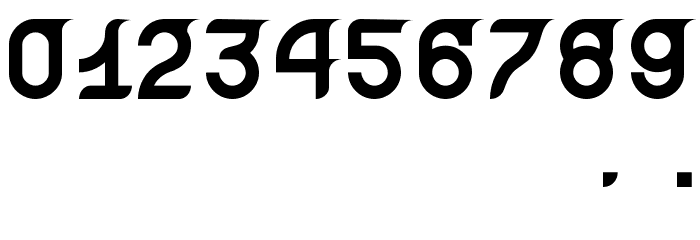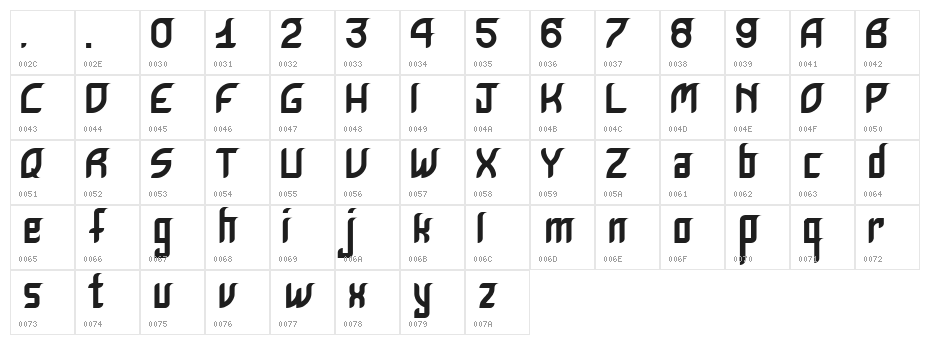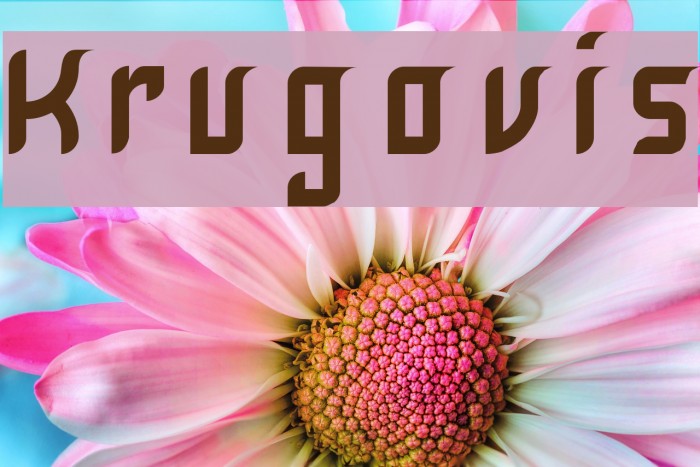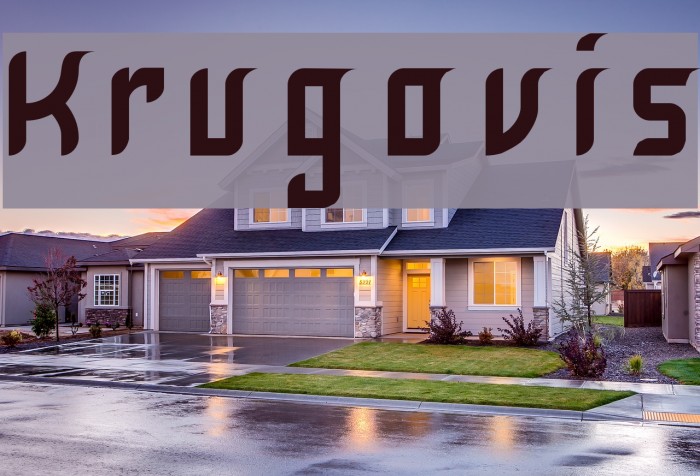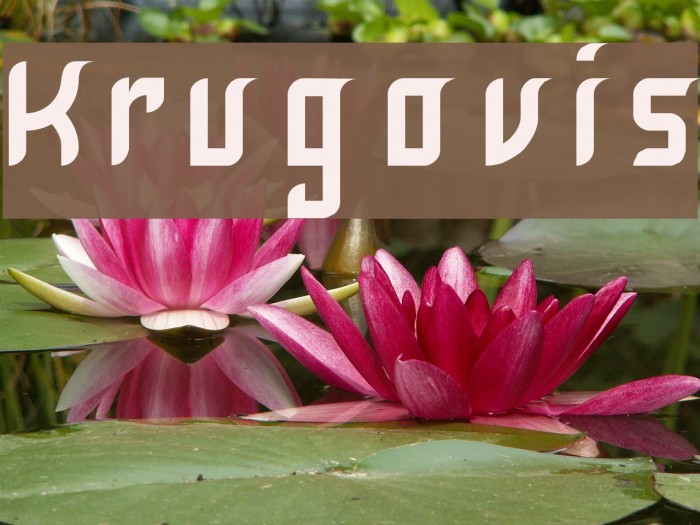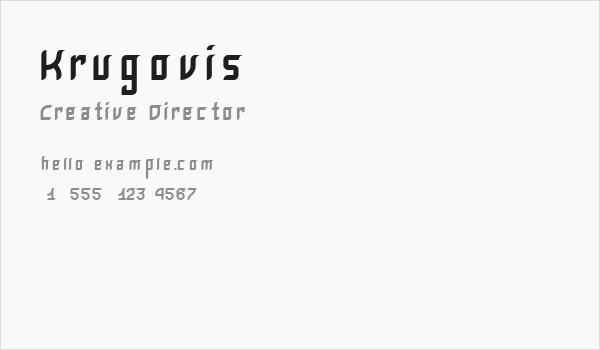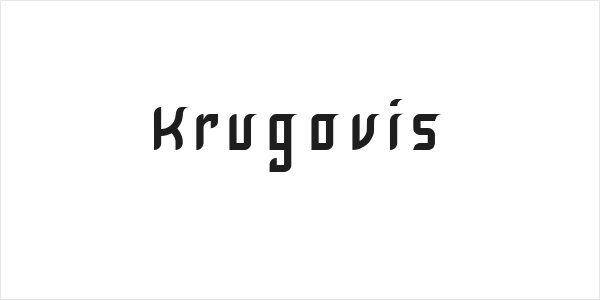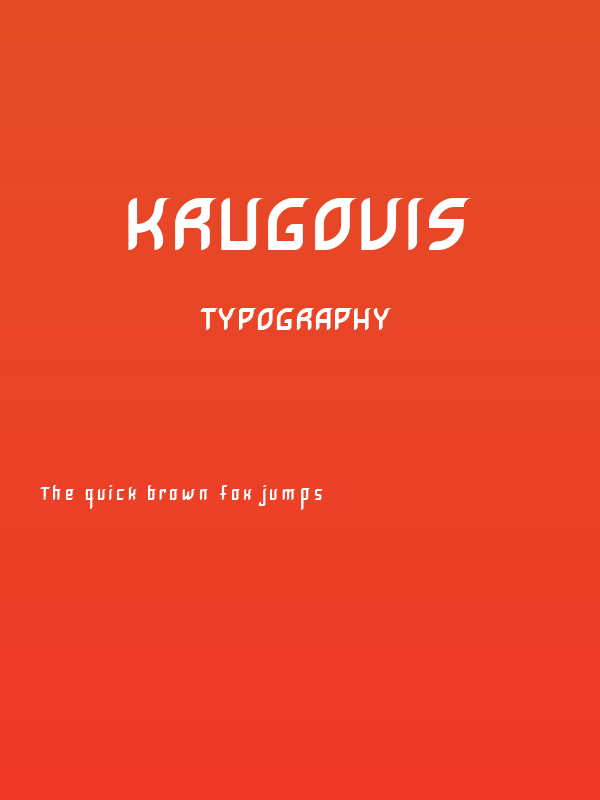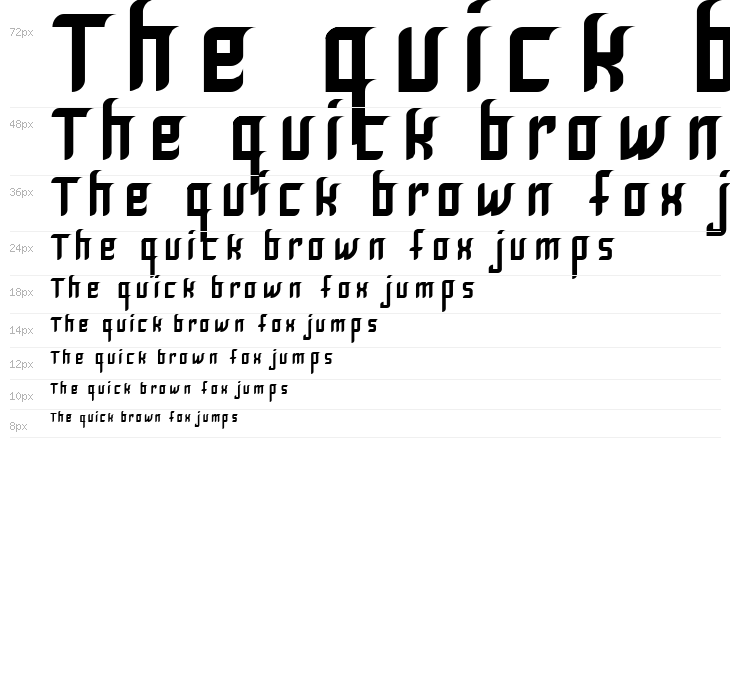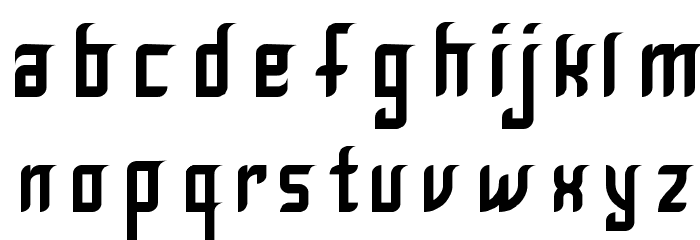
Krugovis Font
Krugovis Description
This font features a unique and bold design with a modern twist. The uppercase letters have a geometric and angular appearance, giving them a futuristic feel. The lowercase letters maintain a consistent style, with some characters having distinctive curves and sharp edges. The numerals are bold and clear, matching the overall aesthetic of the font. The special characters are designed to complement the letters and numbers, maintaining the same bold and angular style. This font is suitable for projects that require a modern and eye-catching look.
Proposed ProjectsIdeal for branding, posters, headlines, and any project needing a modern, bold aesthetic.